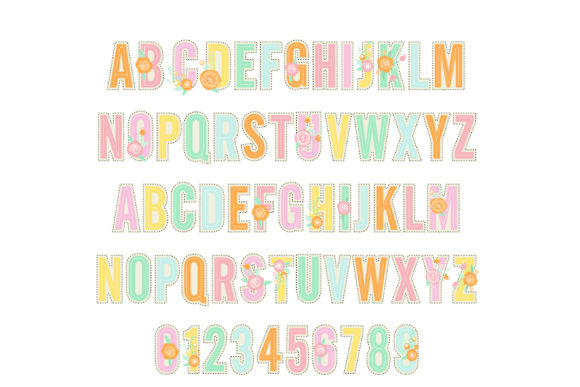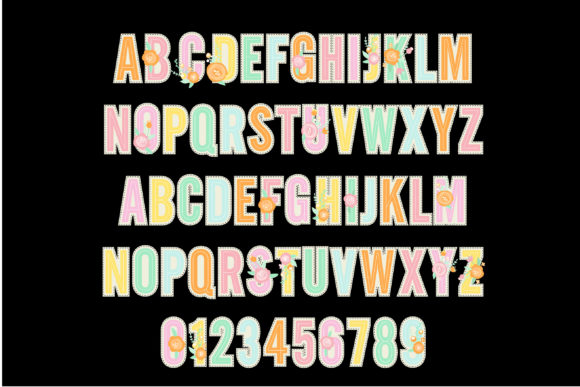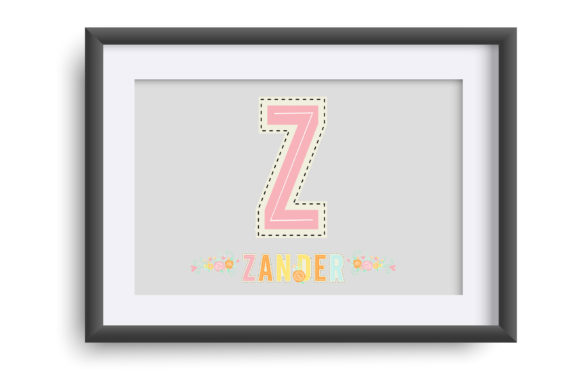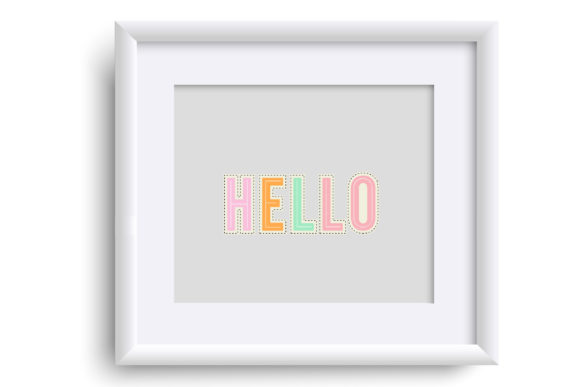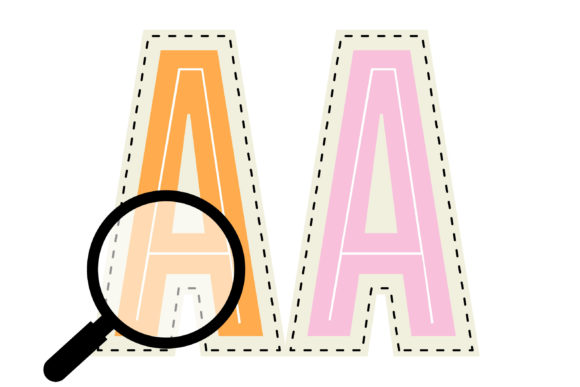
Spring Notes is an enchanting full-color font that adds a delightful touch to your designs. With its heavy sans serif lettering in soft pastel tones and charming floral embellishments, it infuses a sense of playfulness and vibrancy into any project. Whether you’re designing for spring-themed events, feminine branding, or simply seeking to add a lively element to your creations, Spring Notes is a fantastic choice.
When you incorporate Spring Notes into your designs, you’ll immediately notice how it brings them to life. The chunky lettering, combined with the pastel colors and whimsical flower accents, creates a captivating and joyful atmosphere. Your designs will exude a sense of charm and freshness, captivating the attention of viewers and leaving a lasting impression.
As a full-color font, Spring Notes offers a wide range of creative possibilities. Install the font on your computer like any other font, and then access the colorful letters, chunky styling, and adorable floral details through your preferred design software. Additionally, Spring Notes is PUA encoded, which means you can easily access all the amazing glyphs and ligatures it offers. This allows for effortless customization and enhanced creativity in your designs.
Whether you’re working on branding projects, invitations, social media graphics, or any other design endeavor, Spring Notes will add a touch of whimsy and character. The combination of the chunky lettering and delicate floral elements creates a visually appealing contrast that is both eye-catching and charming.
Bring your designs to life with Spring Notes, and let its playful and vibrant nature captivate your audience. Explore the wide range of glyphs and ligatures available, and embrace the versatility and creativity this font offers. Enjoy the journey of creating beautiful and lively designs with Spring Notes as your go-to full-color font!